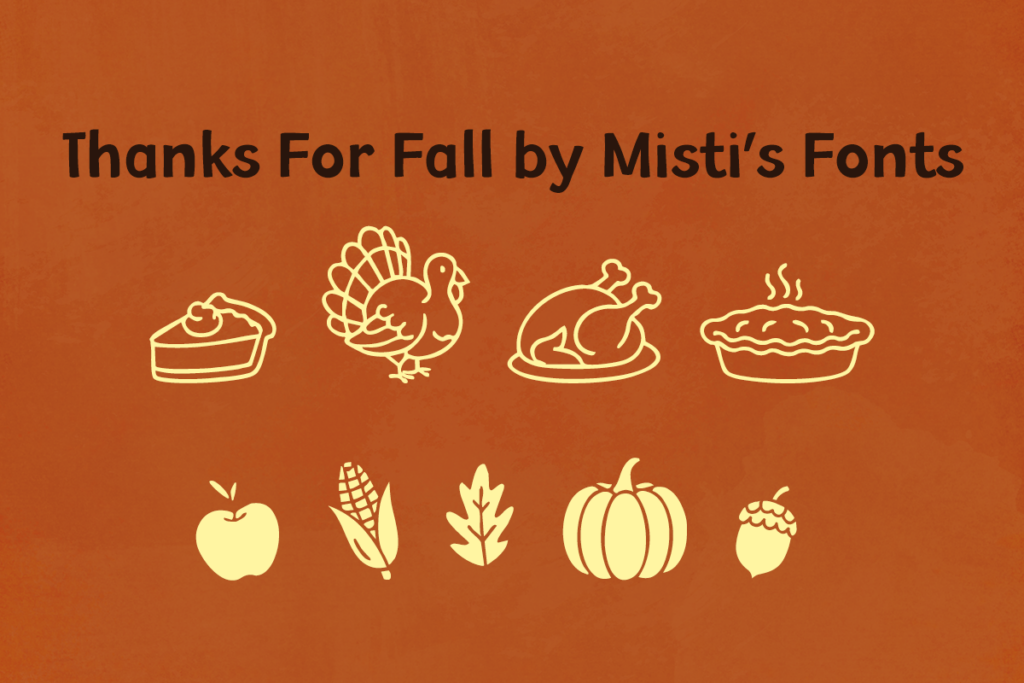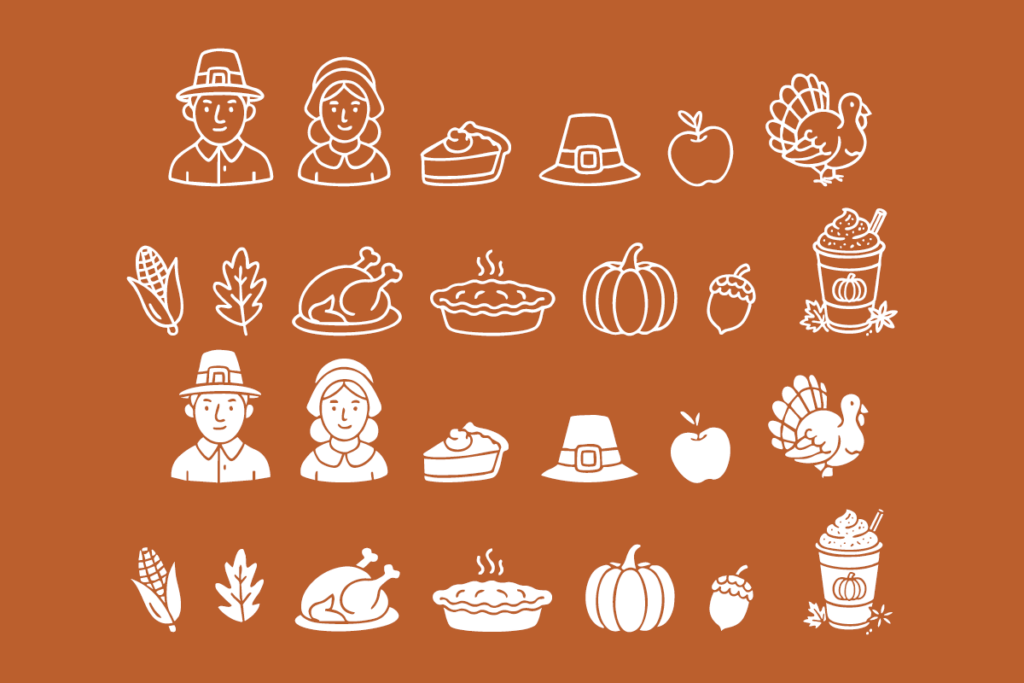
This artistically curated assortment includes a distinct collection of illustrations that incorporate icons of fall celebrations – pilgrims, turkeys, pumpkin pies, and pumpkins. A unique feature is the fall leaf motif elegantly embedded in the typeface, adding a touch of serenity typical of the season. Brilliantly designed, the Thanks For Fall dingbats font not only reflects the spirit of autumn but also infuses your projects with a tastefully festive look. So, get ready to add an alluring Thanksgiving ambiance to your designs with this impressive dingbats font.